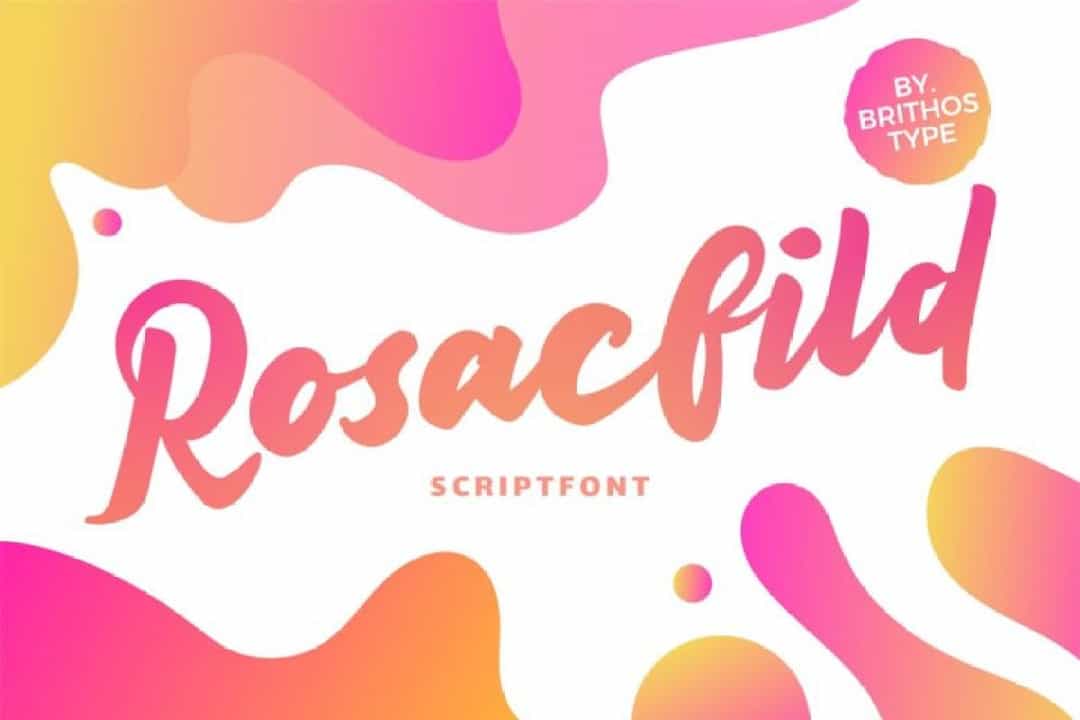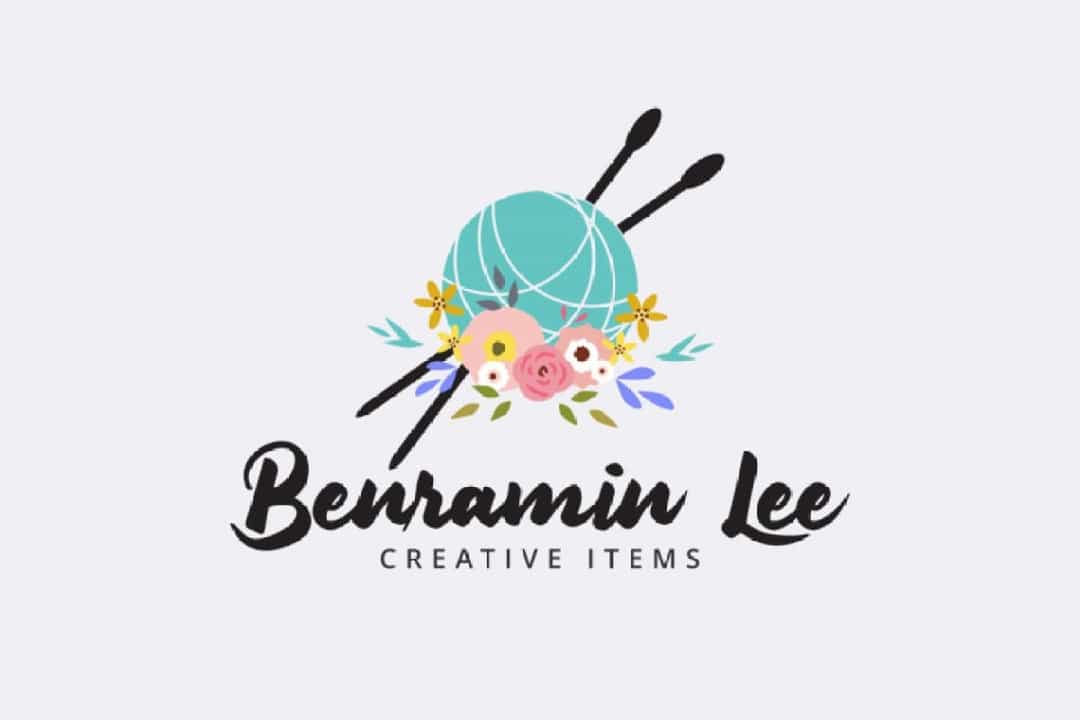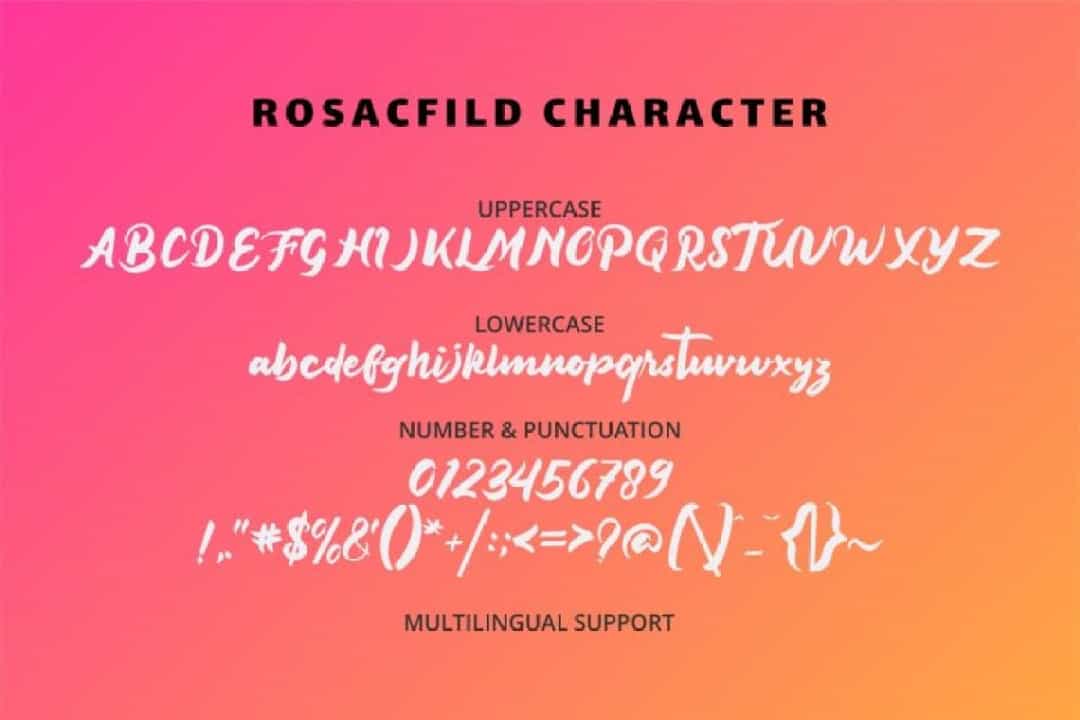
Rosacfild is a particular, bold script font that will surely draw the attention of the viewer. Ideal for headlines of all sizes, as well as text fields where varying levels of differentiation are needed, it is Rosacfild that manages to exceed all its rivals thanks to its aesthetic appeal.